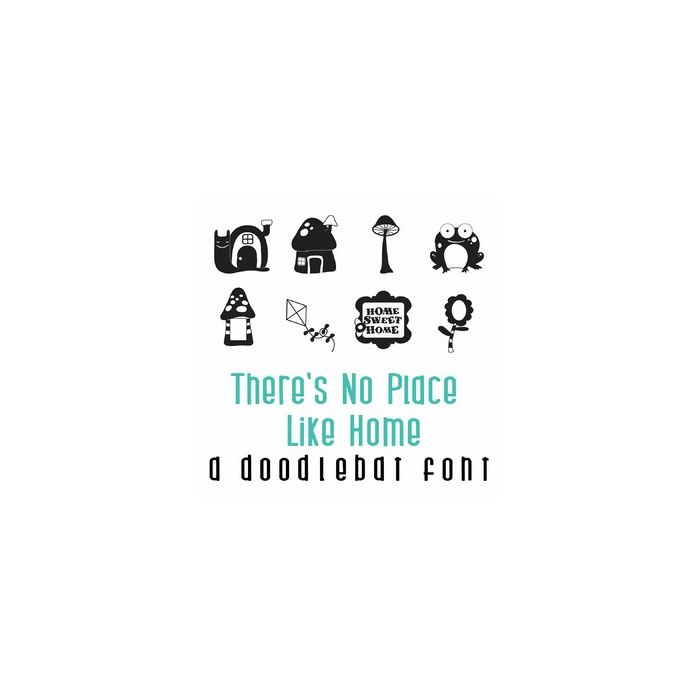
This fun doodlebat font features 26 adorable snails, mushrooms and spring and summer images. Perfect for cards, gifts, decor, crafts, scrap book pages, planner stickers and more!